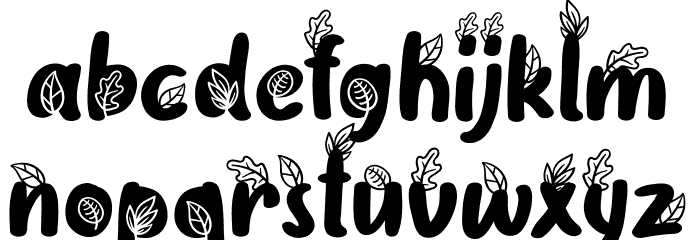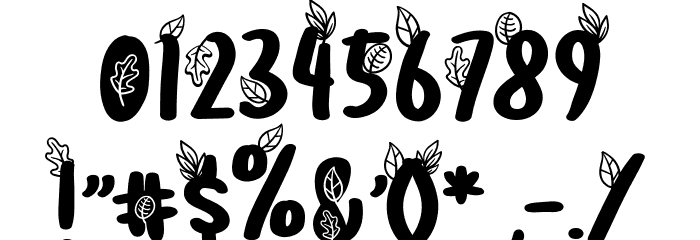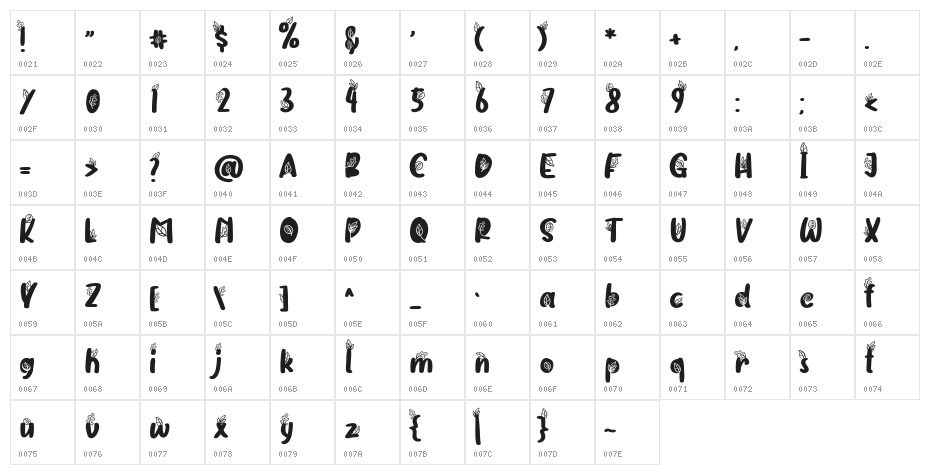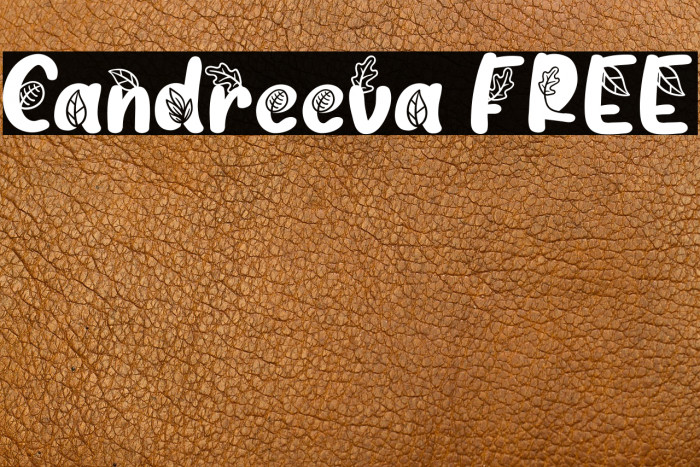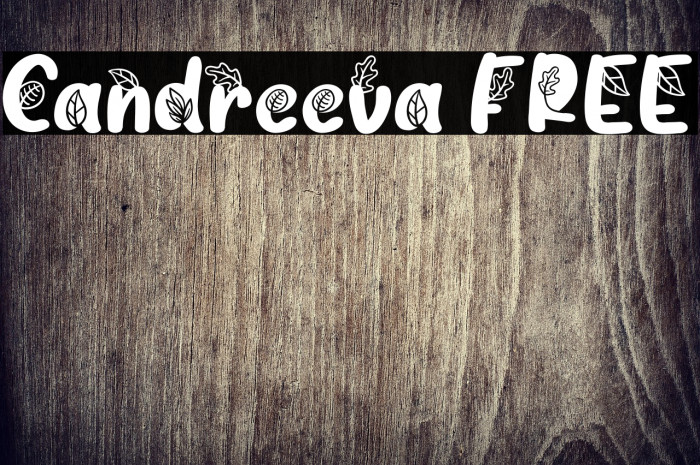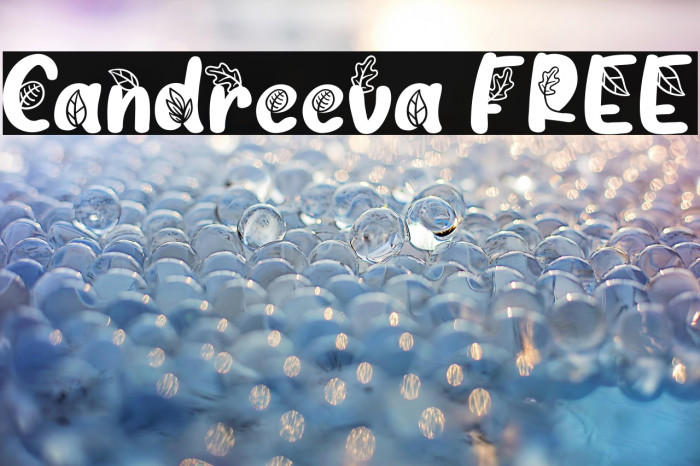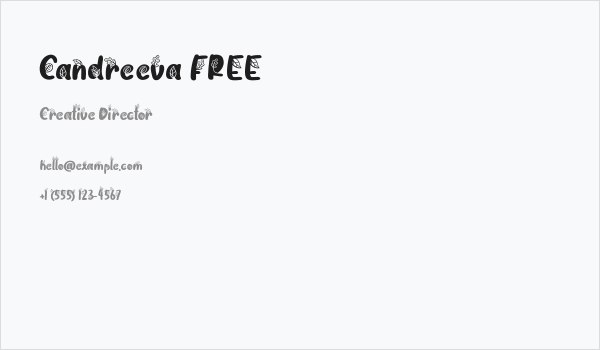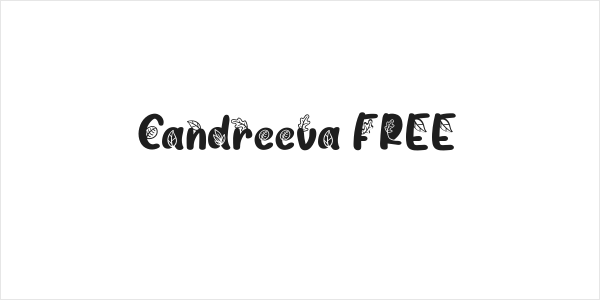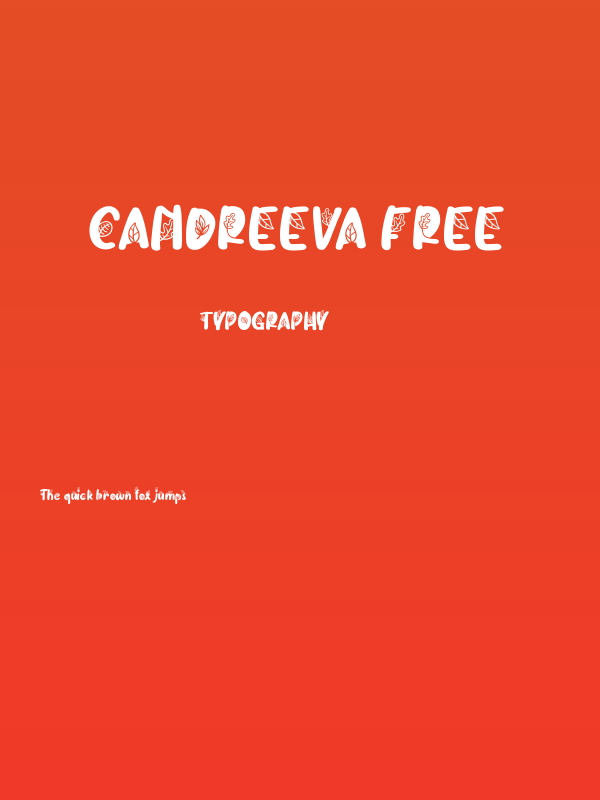
Candreeva FREE Font
This playful and decorative font features bold, rounded letters adorned with leaf motifs, giving it a whimsical and nature-inspired appearance. The uppercase and lowercase letters maintain a consistent style, with each character incorporating a unique leaf design that adds an organic touch. The numerals and special characters follow the same theme, ensuring a cohesive look across all elements. The font's thick strokes and rounded edges contribute to its friendly and approachable feel, making it ideal for projects that aim to convey a sense of fun and creativity.
A bold, decorative font with leaf motifs, perfect for nature-themed designs.
- Proposed Projects: Ideal for eco-friendly branding, children's book covers, garden-themed invitations, and playful posters.
- Use Case: Logos, Posters, Invitations